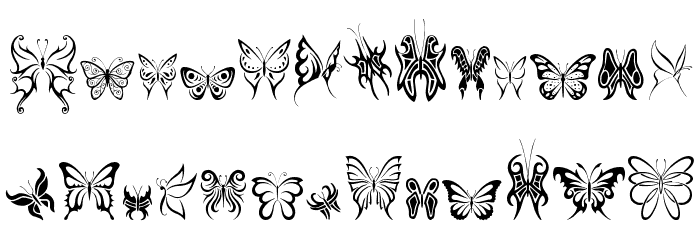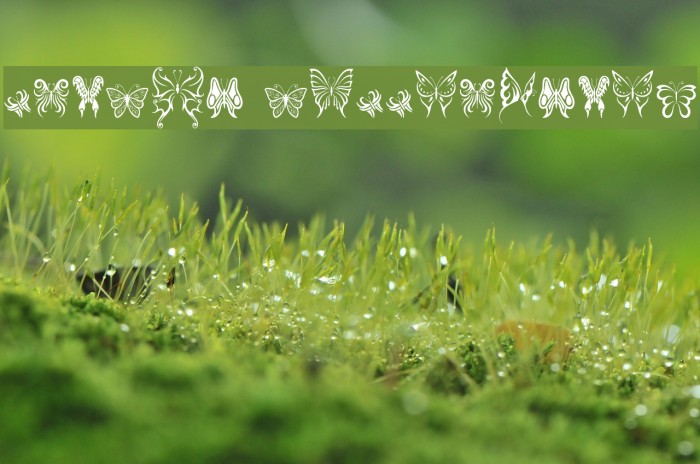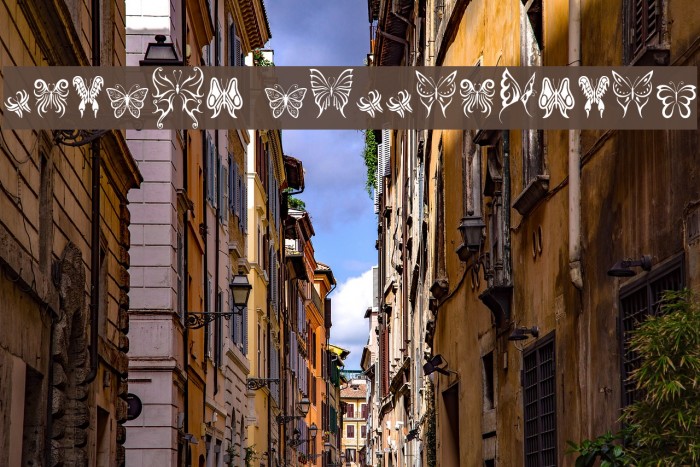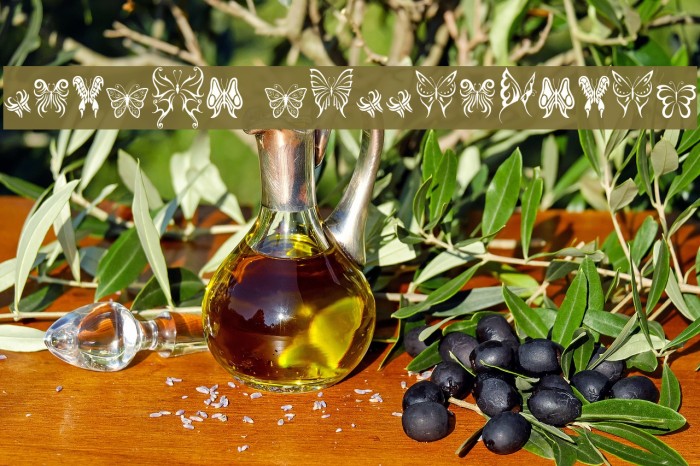
Tribal Butterflies Font
This is not a valid font. The image contains a series of tribal-style butterfly illustrations rather than a traditional alphabet or character set. These designs are intricate and decorative, featuring a variety of butterfly shapes with tribal patterns. The butterflies are stylized with bold lines and symmetrical patterns, making them suitable for decorative purposes rather than textual representation.
A collection of tribal-style butterfly illustrations.
- Proposed Projects: These designs could be used for tattoo art, decorative prints, or as elements in graphic design projects that require a tribal or nature-inspired theme.
- Use Case: Decorative art, Tattoos, Graphic design elements